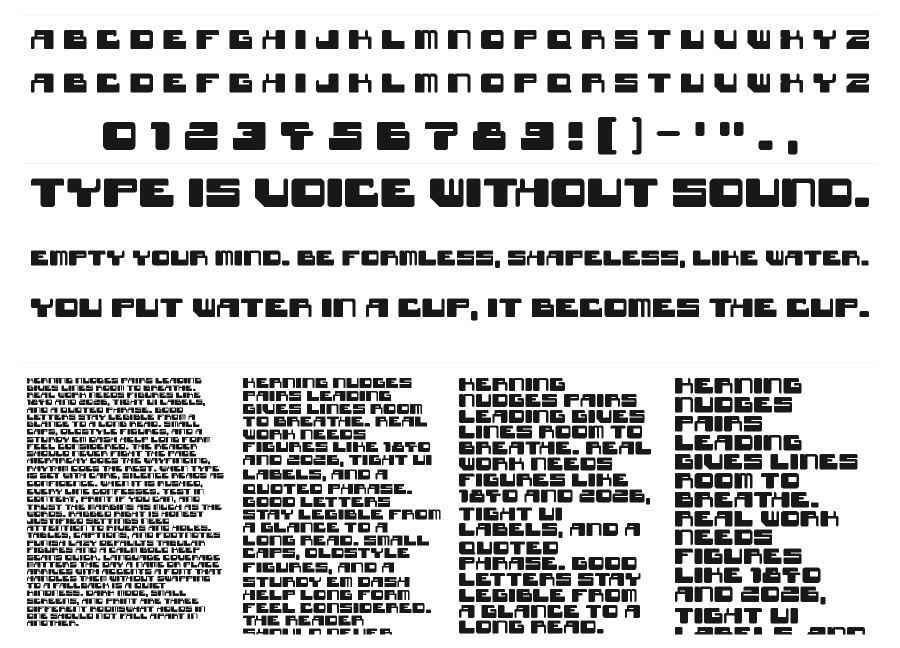
Star Waves
Star Waves is a heavy square techno font built from thick rectangular modules with softly rounded interior corners. The chunky, uniform strokes and wide proportions give it a retrofuturist LCD-display quality rooted in 1970s sci-fi design. It works well in gaming titles, posters, and anywhere a bold futuristic presence is needed.